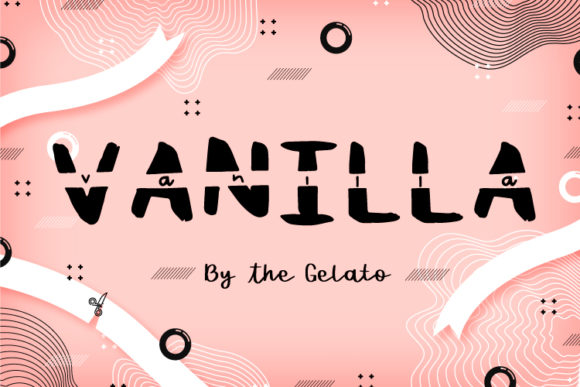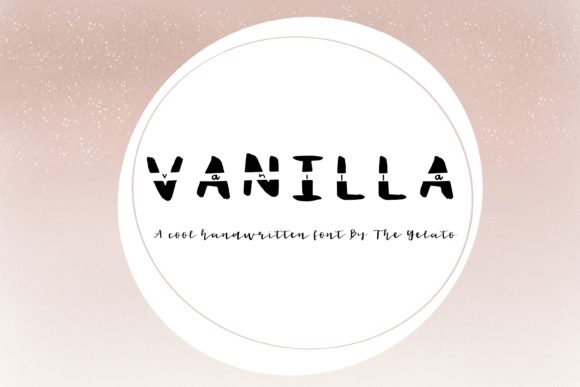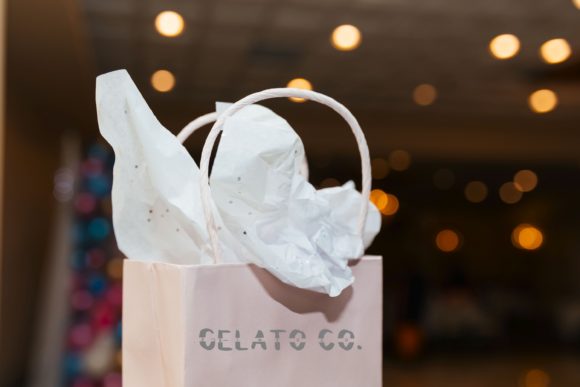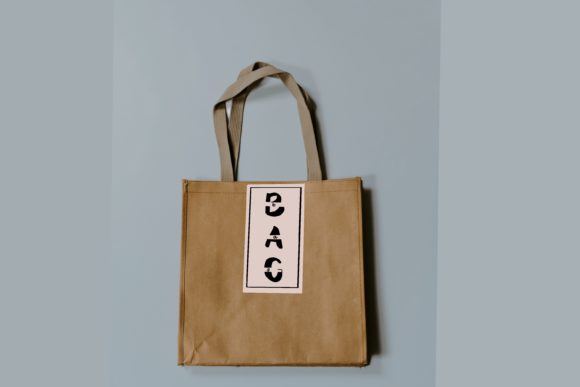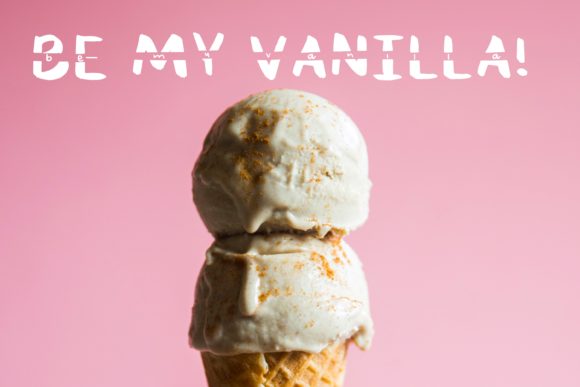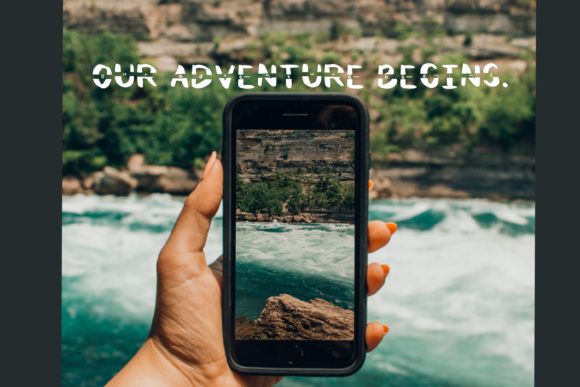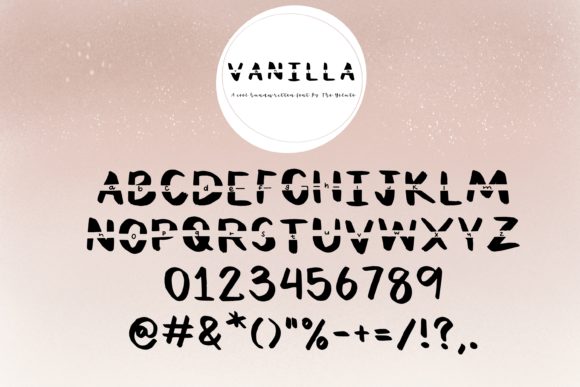
Vanilla Font
About Vanilla Font
Vanilla is a stylish and unique handwritten font. Choosing it for your next project will be the best choice, as Vanilla is incredibly versatile, having the potential to become a true favorite. The only limit is your imagination!